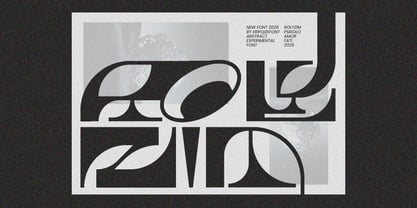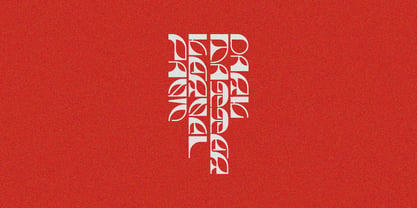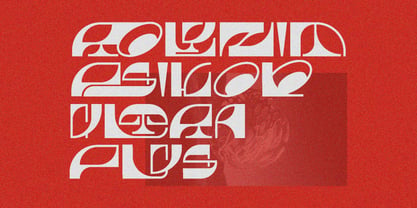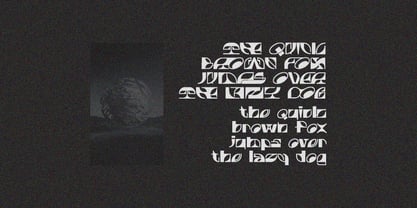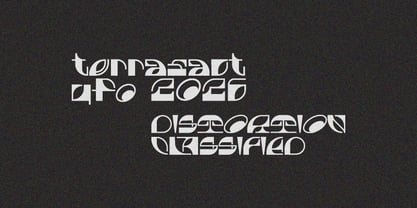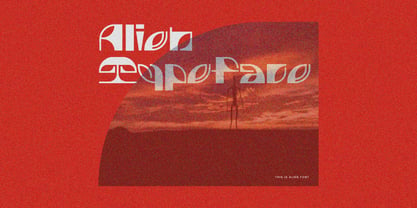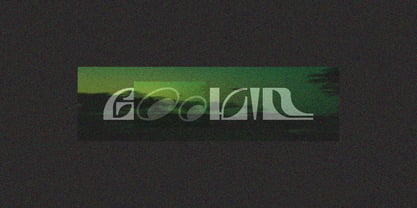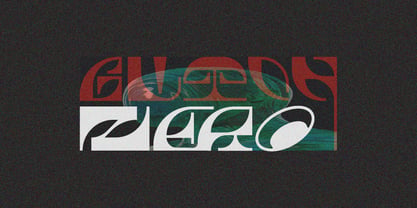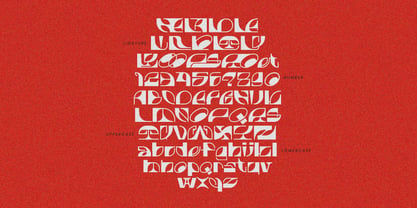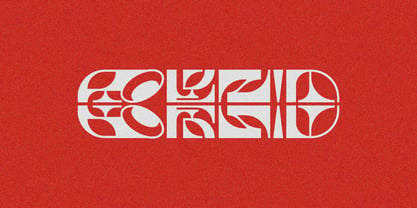
Rolyzim
by Erifqizefont
The Rolyzim Font Family was designed by Eka Rifqi Setiawan and published by Erifqizefont. Rolyzim contains 1 styles. More about this family
Rolyzim is an abstract experimental display typeface inspired by futuristic symbols, alien aesthetics, and unconventional geometric forms. Featuring fluid curves, modular constructions, and unique letter compositions, Rolyzim creates a mysterious and otherworldly visual identity that instantly captures attention.
Designed for bold creative exploration, this typeface works perfectly for futuristic branding, sci-fi posters, experimental layouts, music covers, fashion editorials, gaming visuals, and digital art projects. Its distinctive shapes blur the line between typography and abstract visual art, making every composition feel modern, strange, and expressive.
Rolyzim is made for designers who want to push boundaries and create visuals that feel futuristic, artistic, and truly unique.
Designers: Eka Rifqi Setiawan
Foundry: Erifqizefont